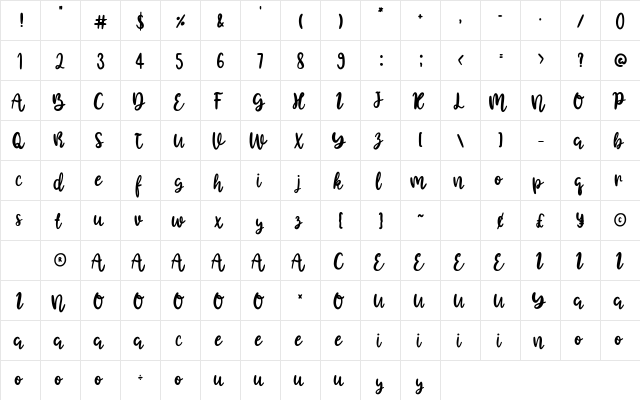
Before Christmas Regular
Design Context for Before Christmas Typeface
Before Christmas is a composed and adaptable typeface that performs quietly and consistently across a wide range of design contexts.